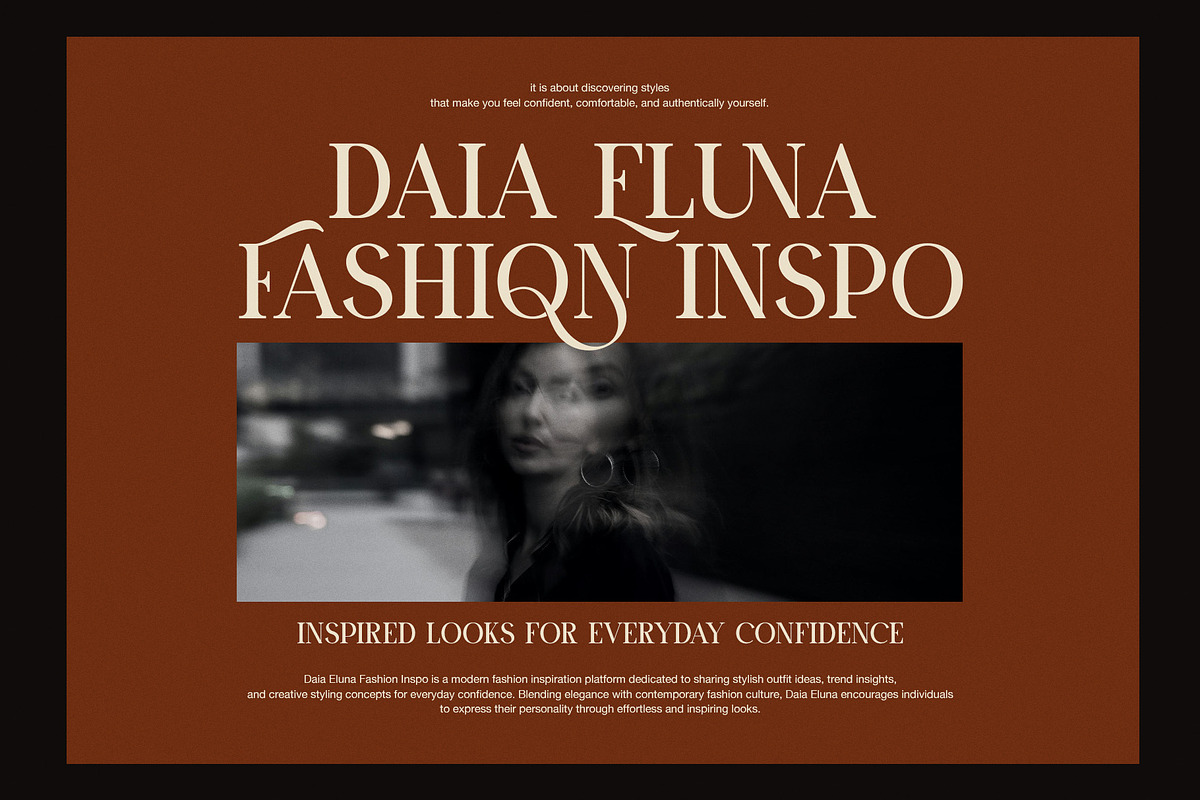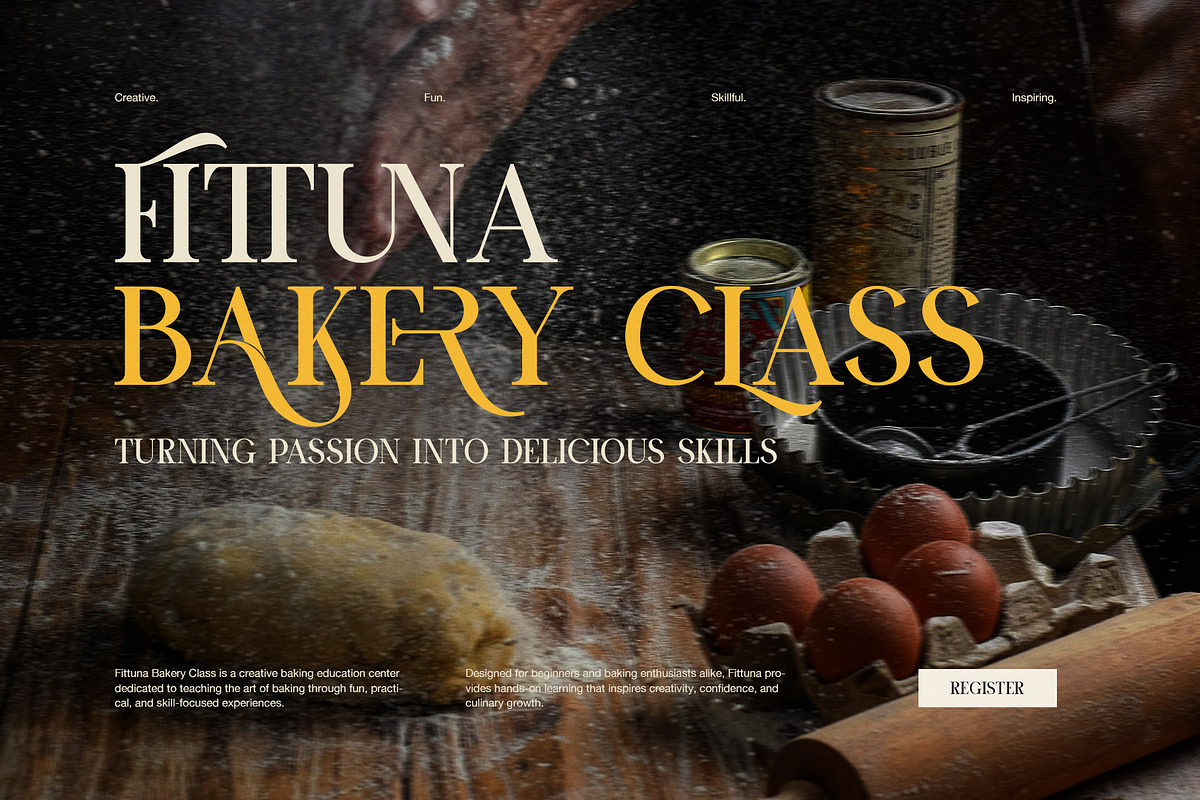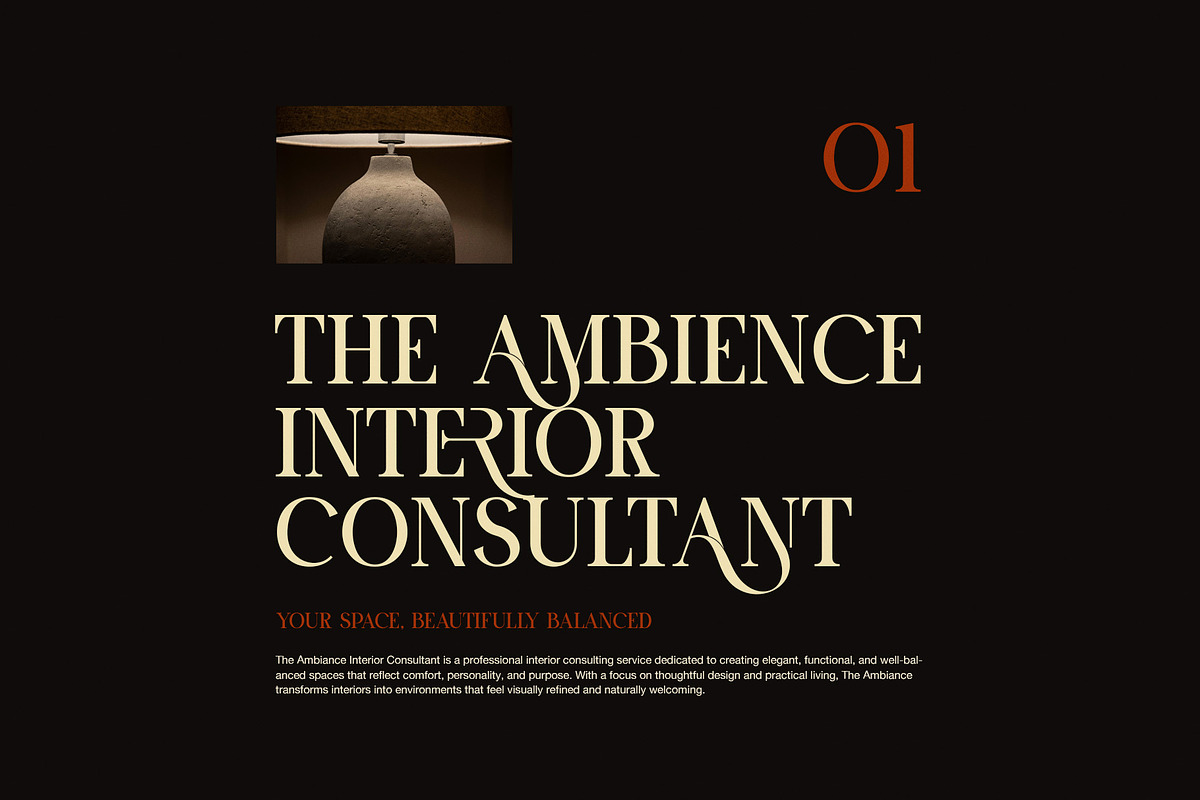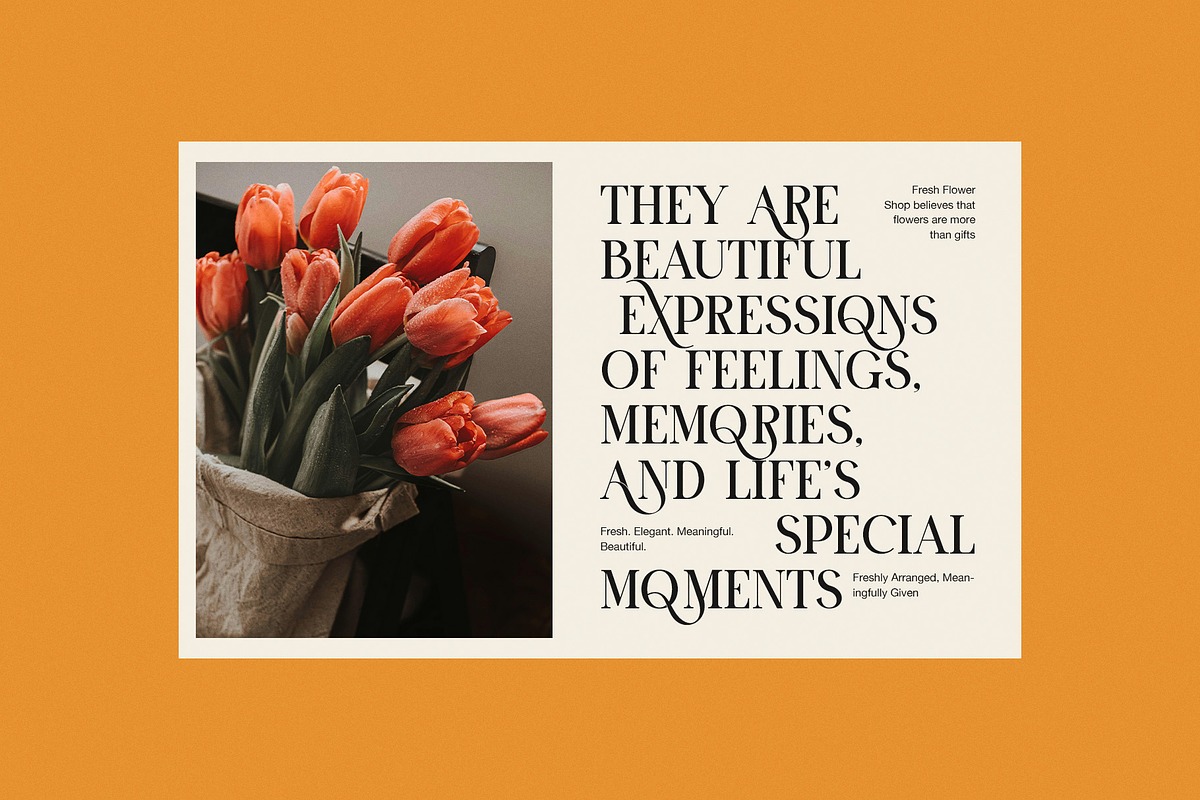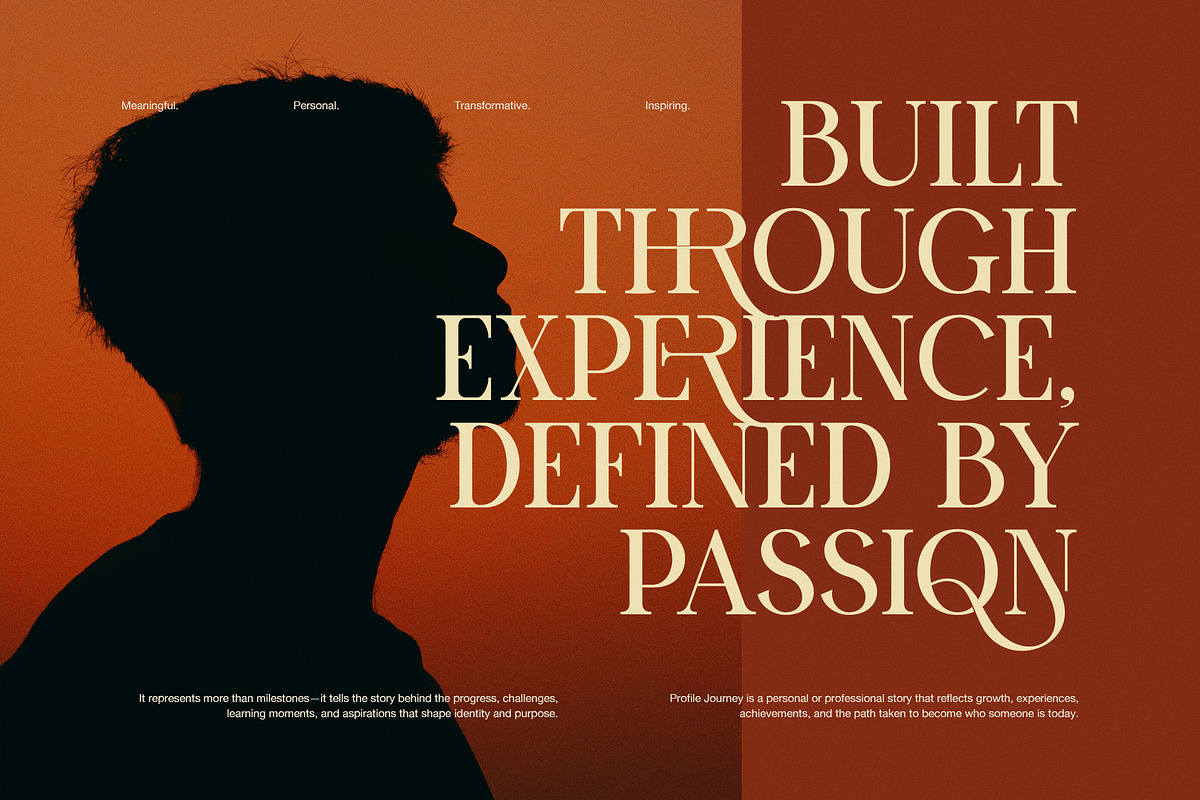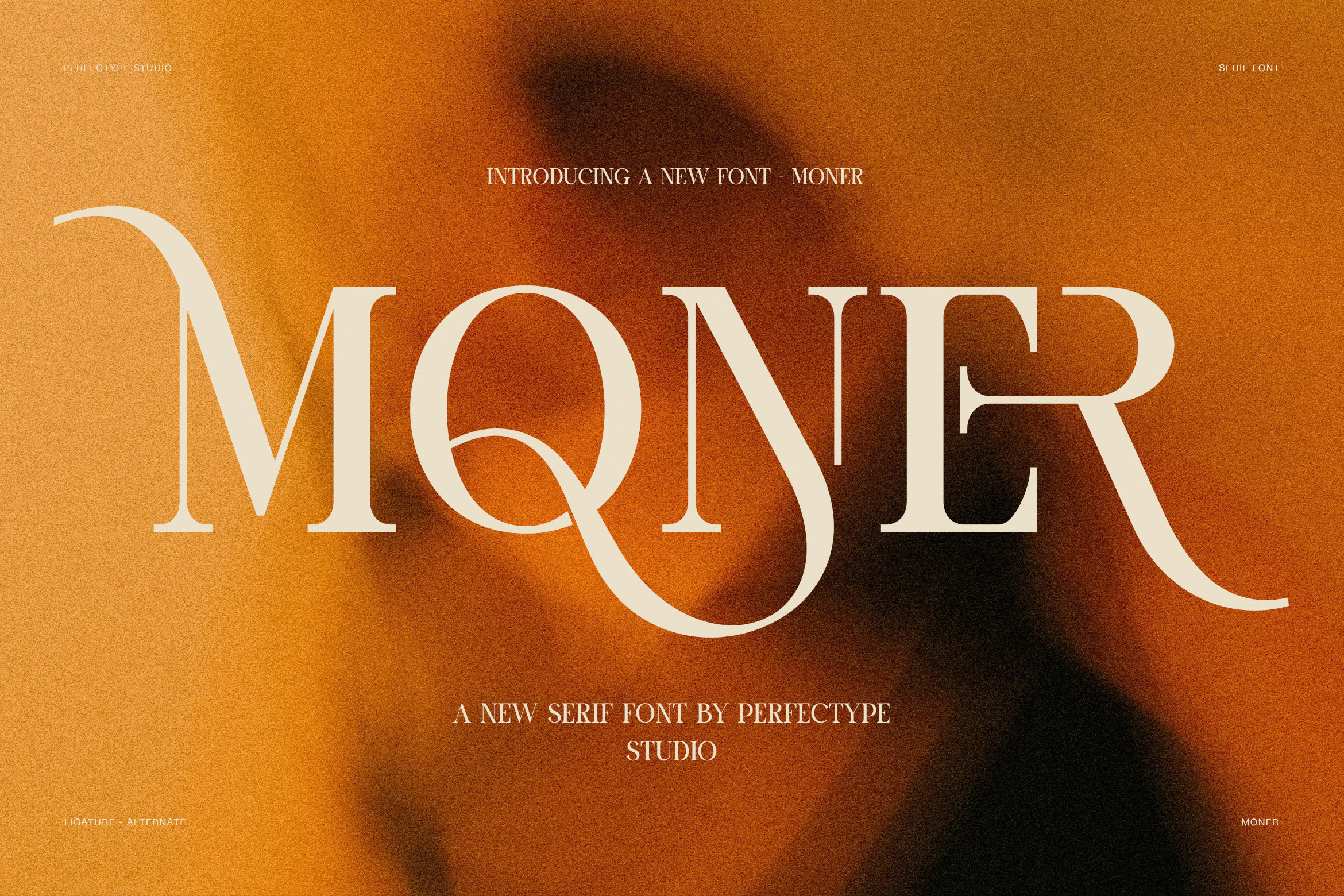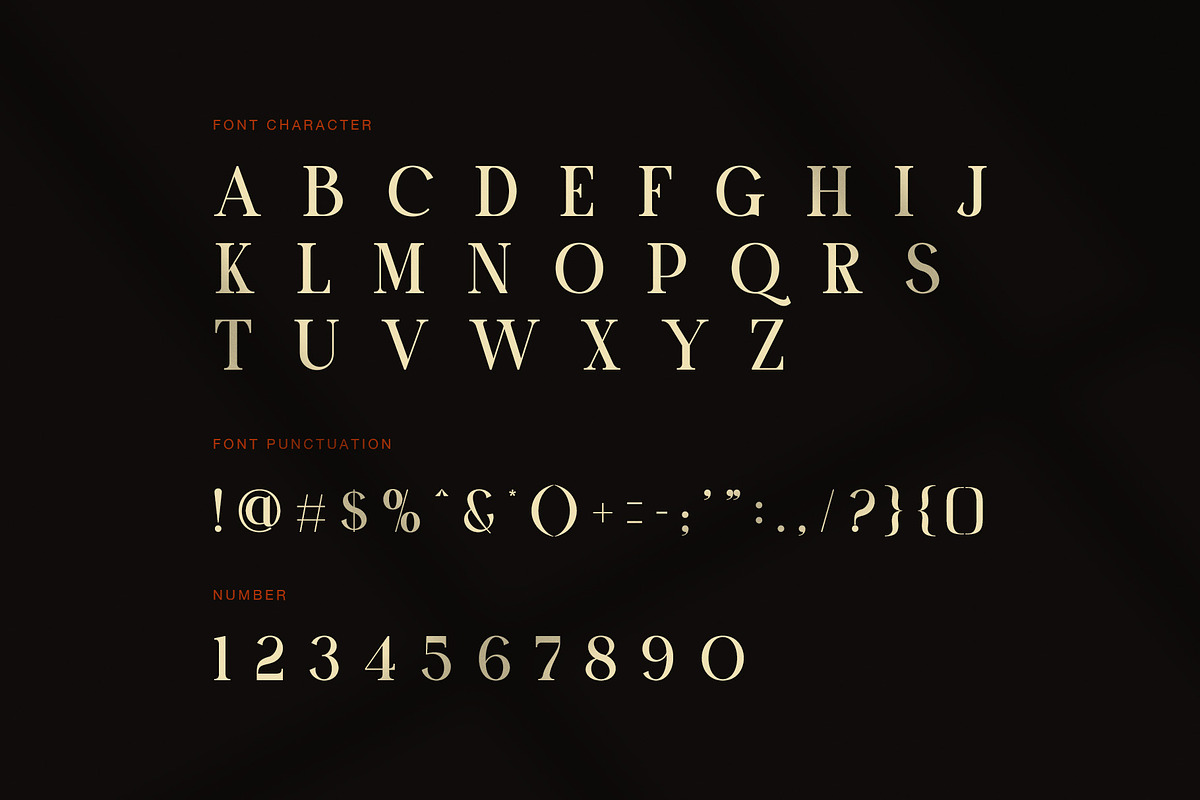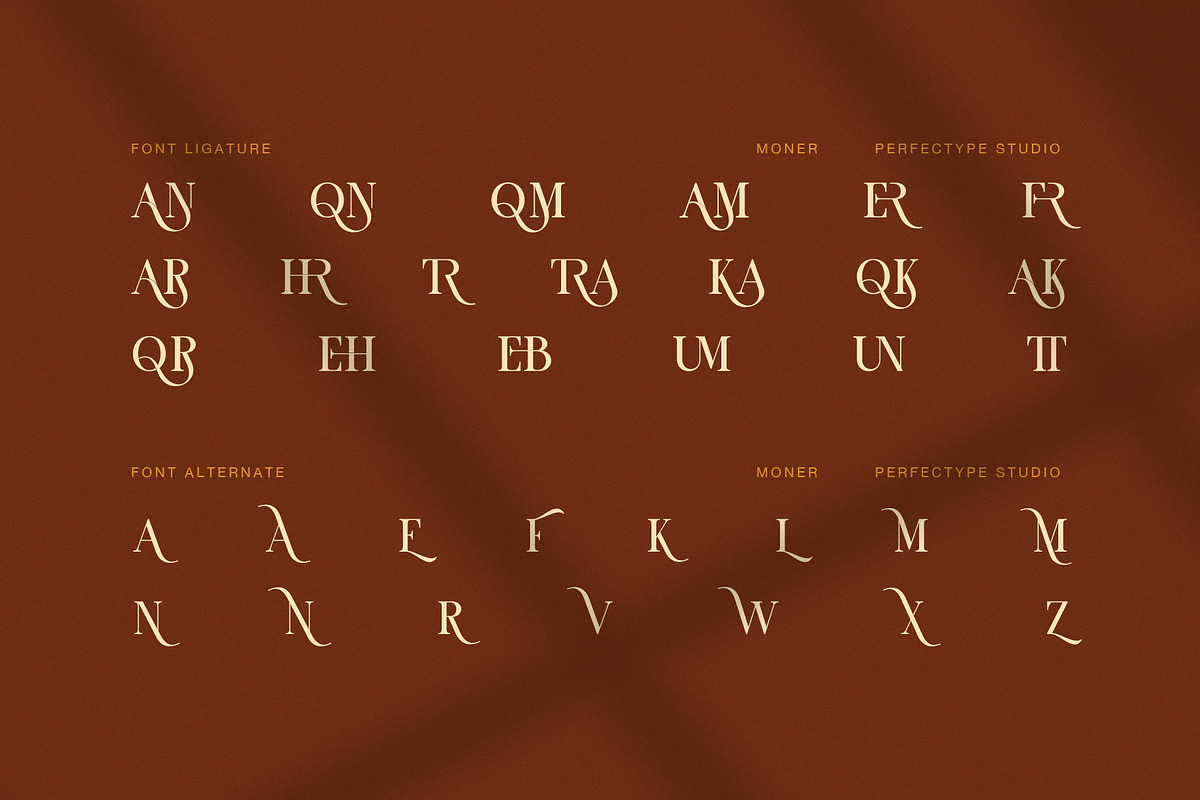
Moner Elegant Serif Font
Moner is an elegant serif font designed with a modern luxury style. Moreover, it blends classic shapes with a fresh and stylish look. The font shows high contrast lines and smooth curves. Therefore, it gives a strong and refined visual impression. In addition, Moner works well for branding, fashion, and editorial design. It is made to help designers create clean and premium layouts. Meanwhile, its letterforms stay easy to read in many sizes. Because of this, it is useful for both print and digital work. Furthermore, the font brings a calm and confident mood to every design project. As a result, it fits perfectly for luxury and modern themes.
Moreover, Moner includes stylish alternates and ligatures. Therefore, designers can build unique and artistic word shapes with ease. In addition, the spacing is carefully balanced for smooth reading. However, it still keeps strong artistic detail in every letterform. Furthermore, the serif structure is sharp but also soft at the edges. Consequently, it creates a timeless look that feels elegant and high-end. Meanwhile, the font supports creative typography exploration. For example, you can mix uppercase and lowercase styles to create strong visual contrast. Because of this, Moner becomes a powerful choice for branding identity systems.
Moner is suitable for many design needs. Moreover, it can be used in:
Luxury logo design
Fashion branding
Magazine headlines
Wedding invitations
Product packaging
Social media posts
Poster design
Editorial layouts
Therefore, Moner helps designers build a strong and elegant visual identity. In addition, it connects modern style with classic serif beauty. Finally, it is a perfect font for creative professionals who want clean, stylish, and premium results.